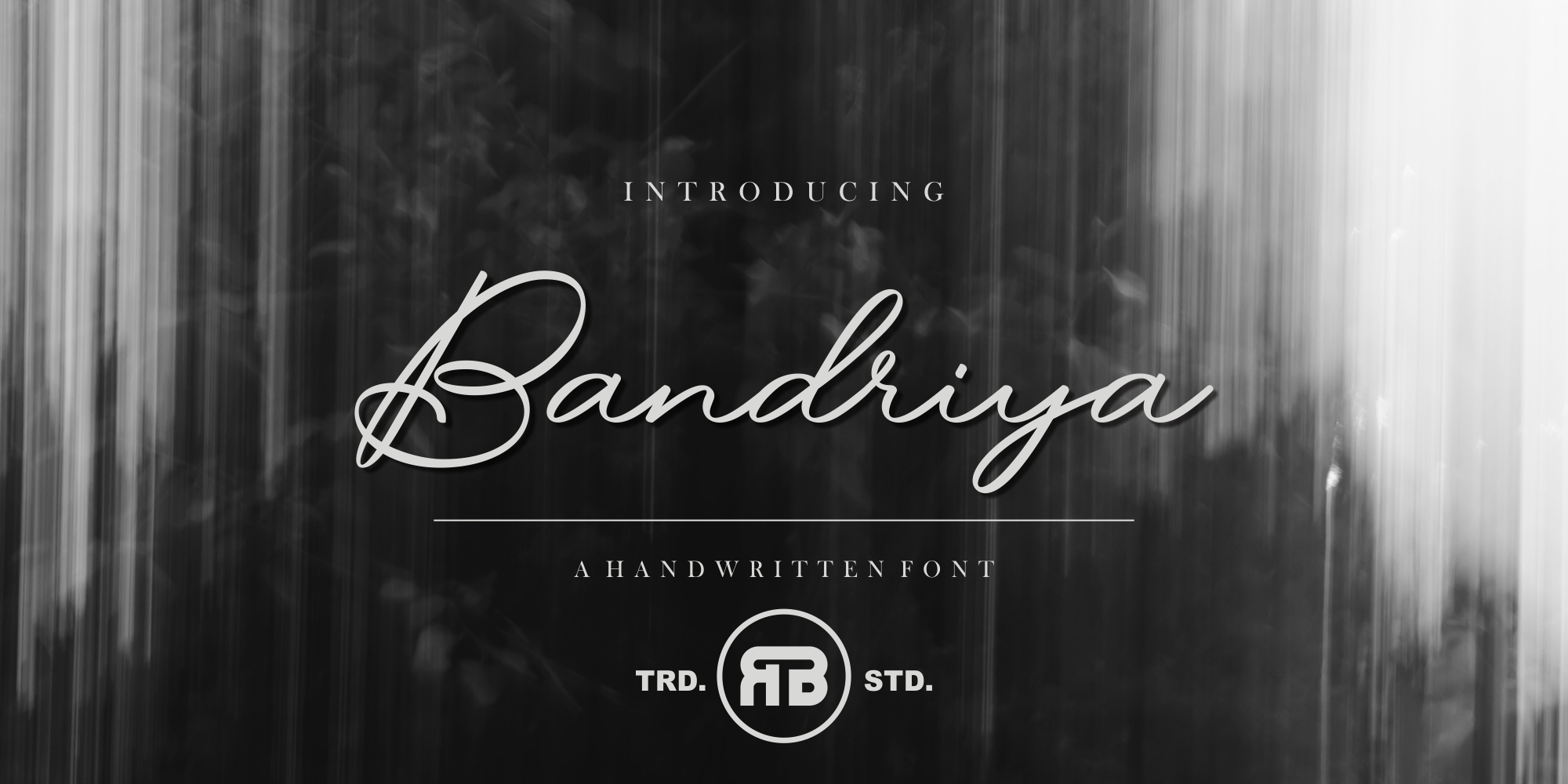
If you're looking for a sophisticated, handwritten-style script font with a touch of elegance, Bandriya Font Free Download is an excellent choice. This decorative script typeface features flowing, smooth strokes with delicate curves and intricate details, making it perfect for wedding invitations, branding, logo designs, greeting cards, and other high-end projects that require a personal, artistic touch.
Bandriya has a natural, organic feel, with each letter connecting gracefully, giving it a stylish yet approachable look. It’s ideal for creating custom designs that evoke romance, creativity, and sophistication, and can elevate any project that benefits from an elegant handwritten style.
Whether you're designing for personal or professional use, Bandriya works beautifully in both large titles and smaller text applications, making it a versatile addition to your design toolkit.